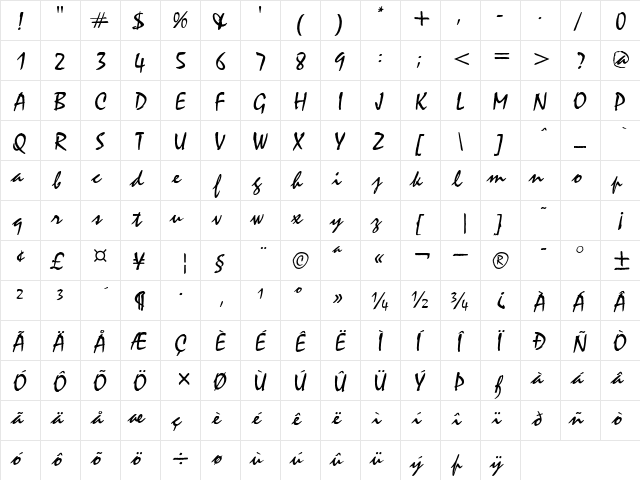
CyclonePlain Plain
Design Context for CyclonePlain Typeface
CyclonePlain is a composed and adaptable typeface that performs quietly and consistently across a wide range of design contexts.